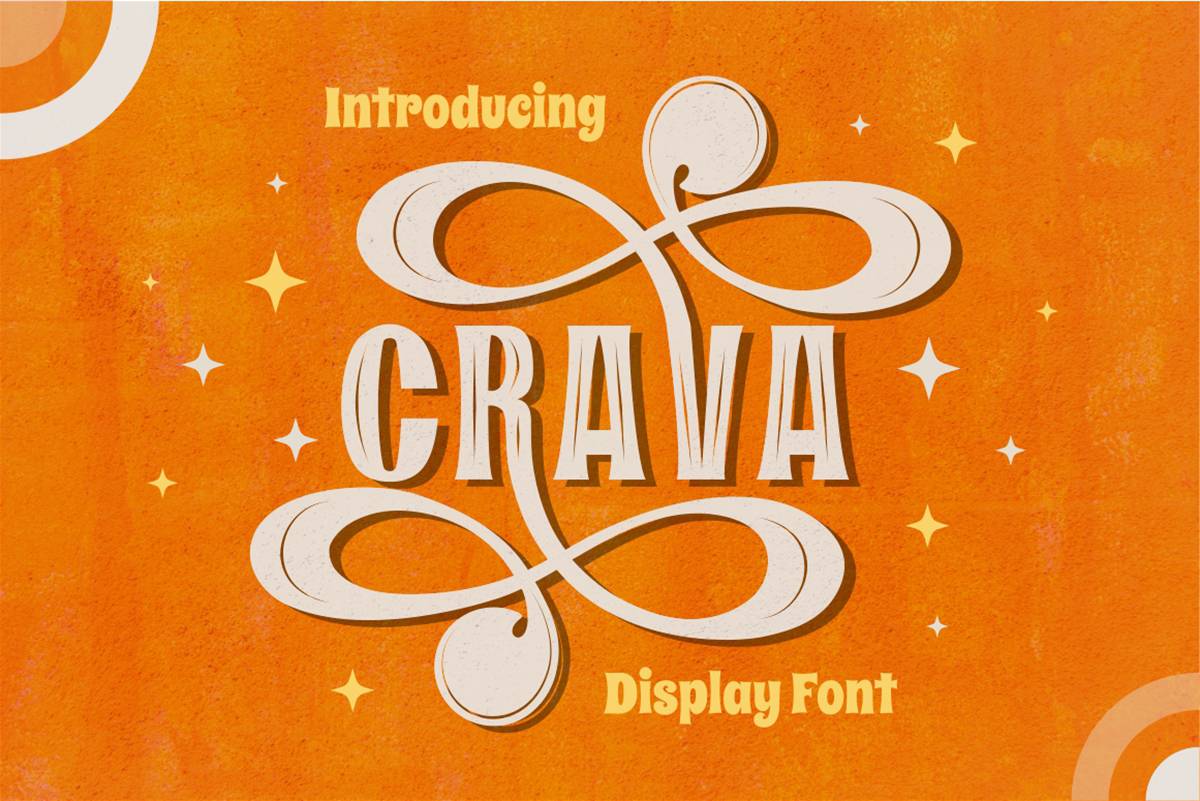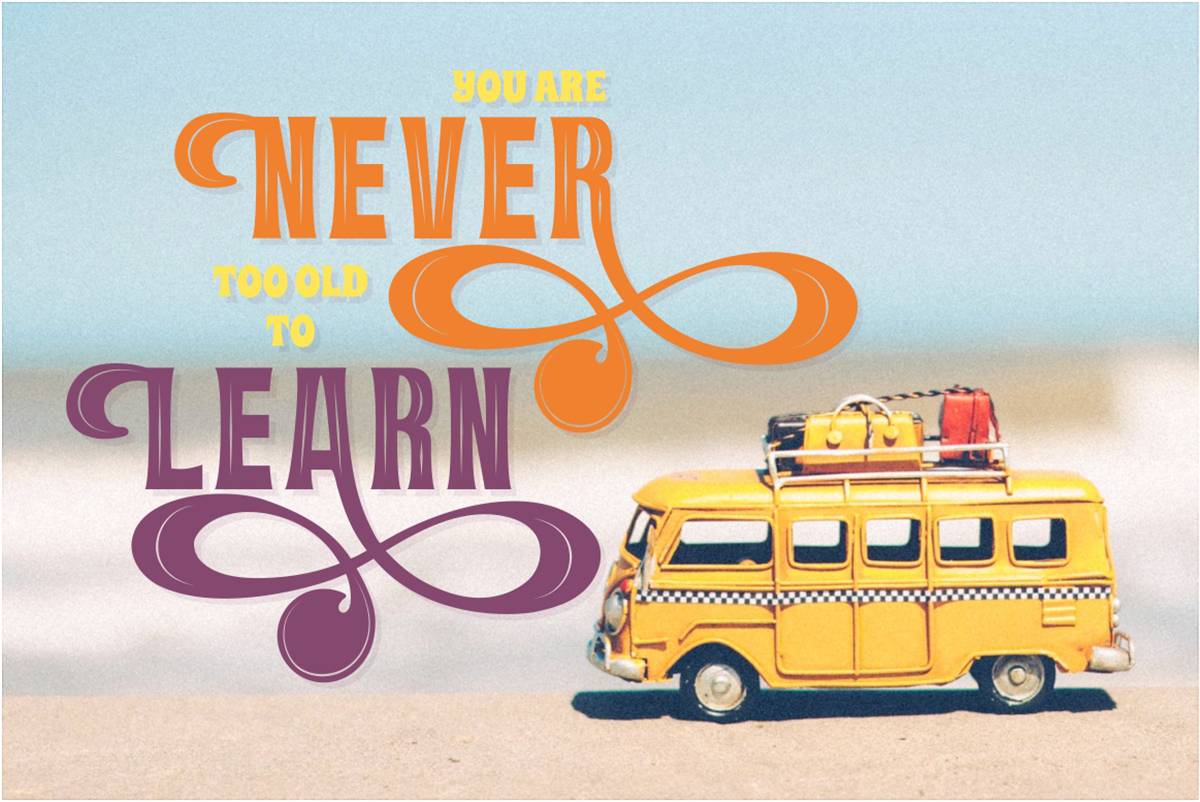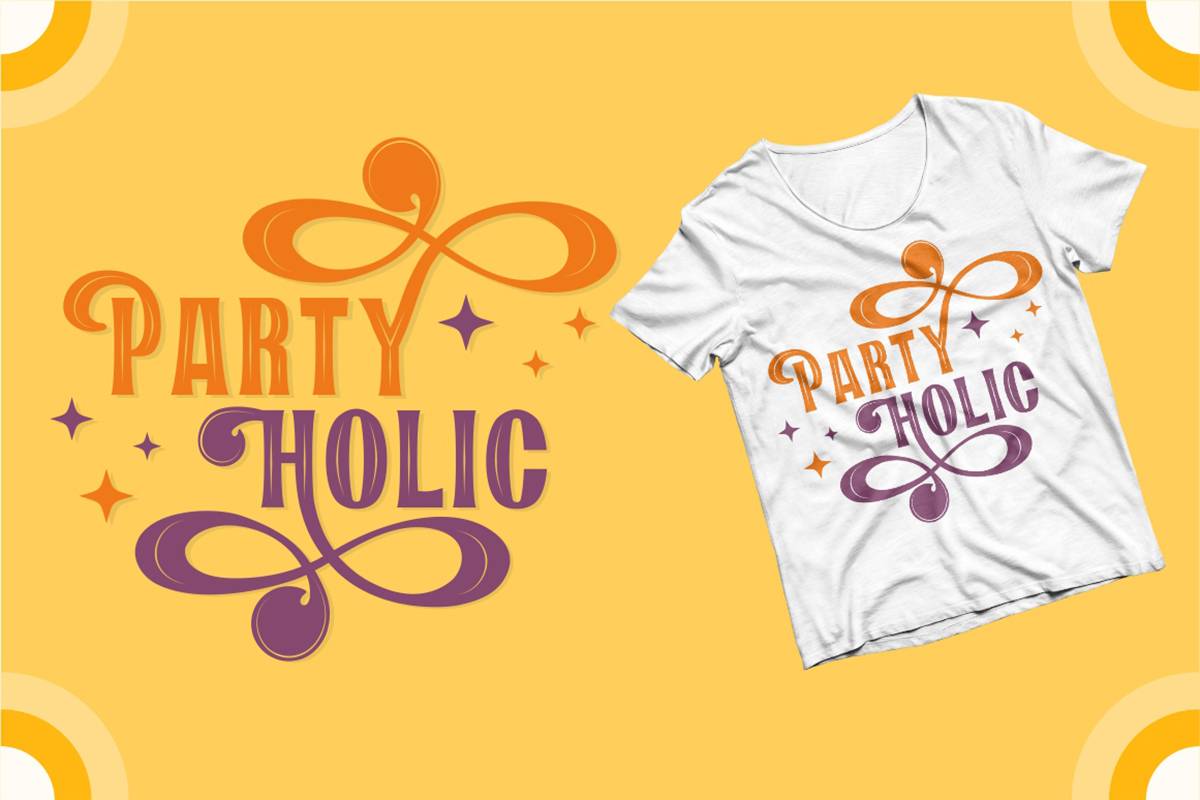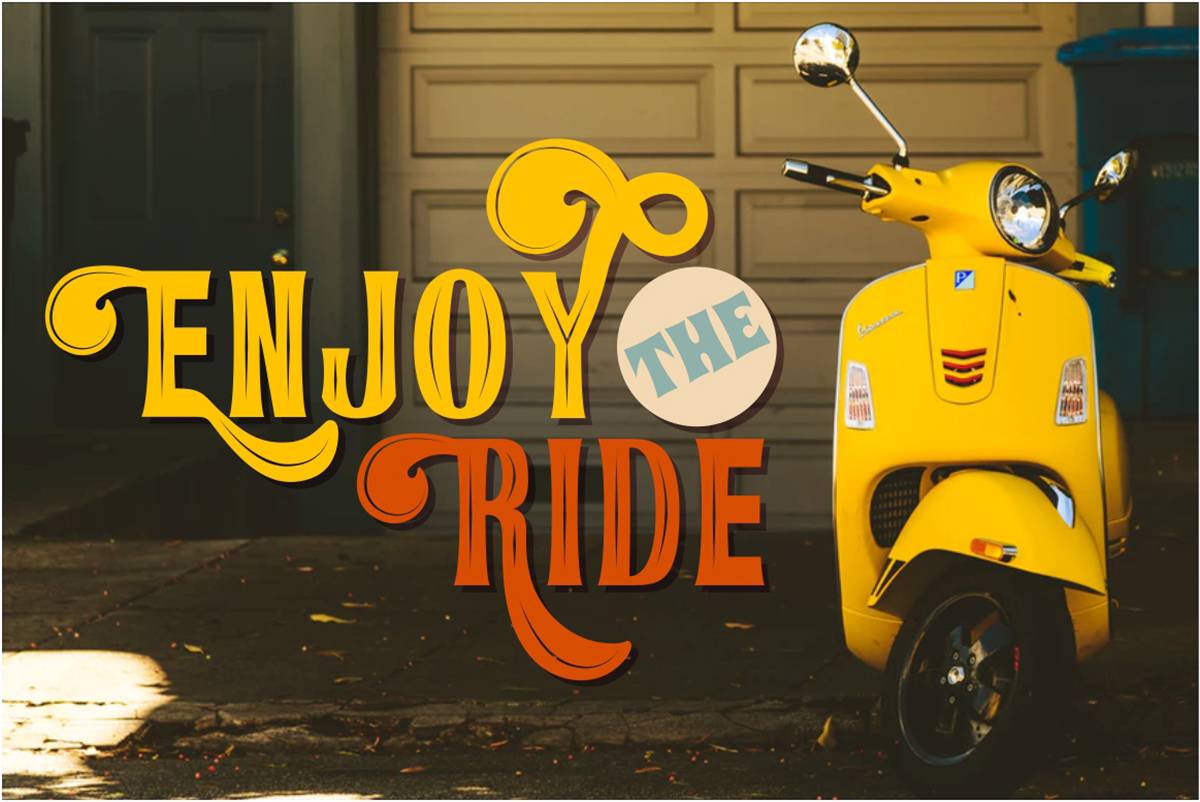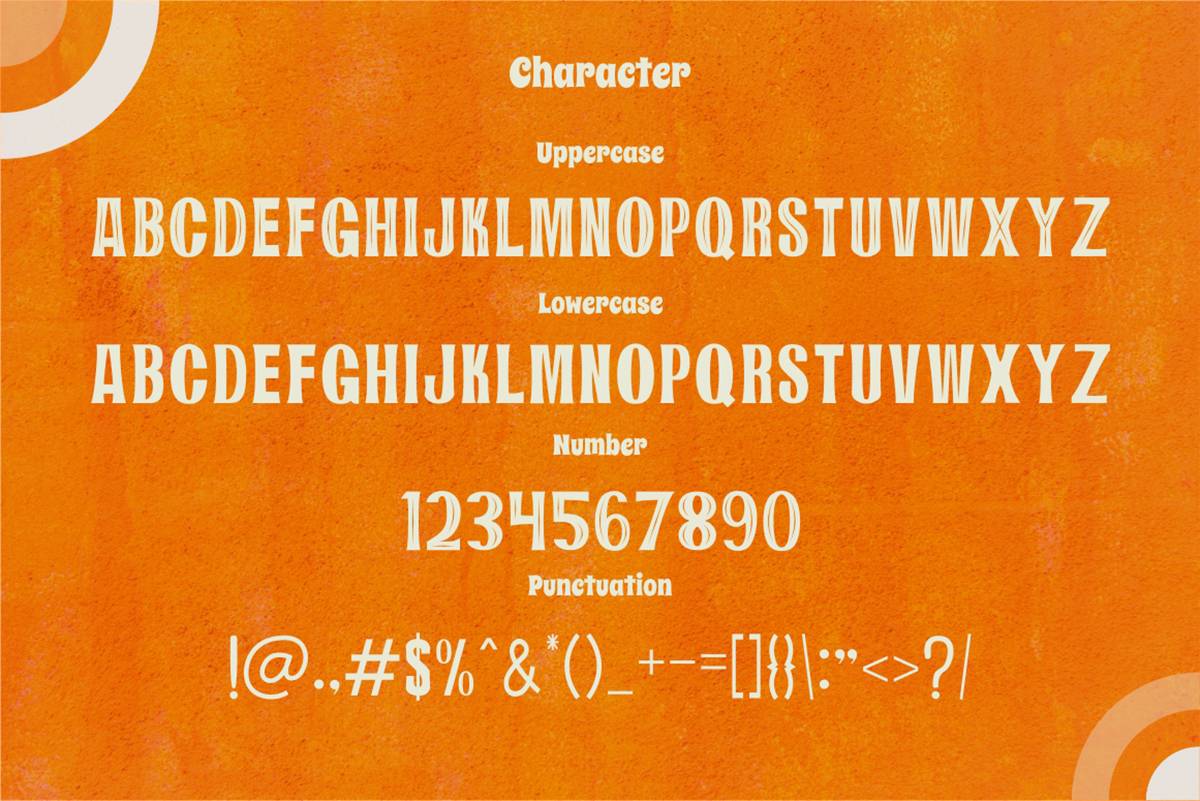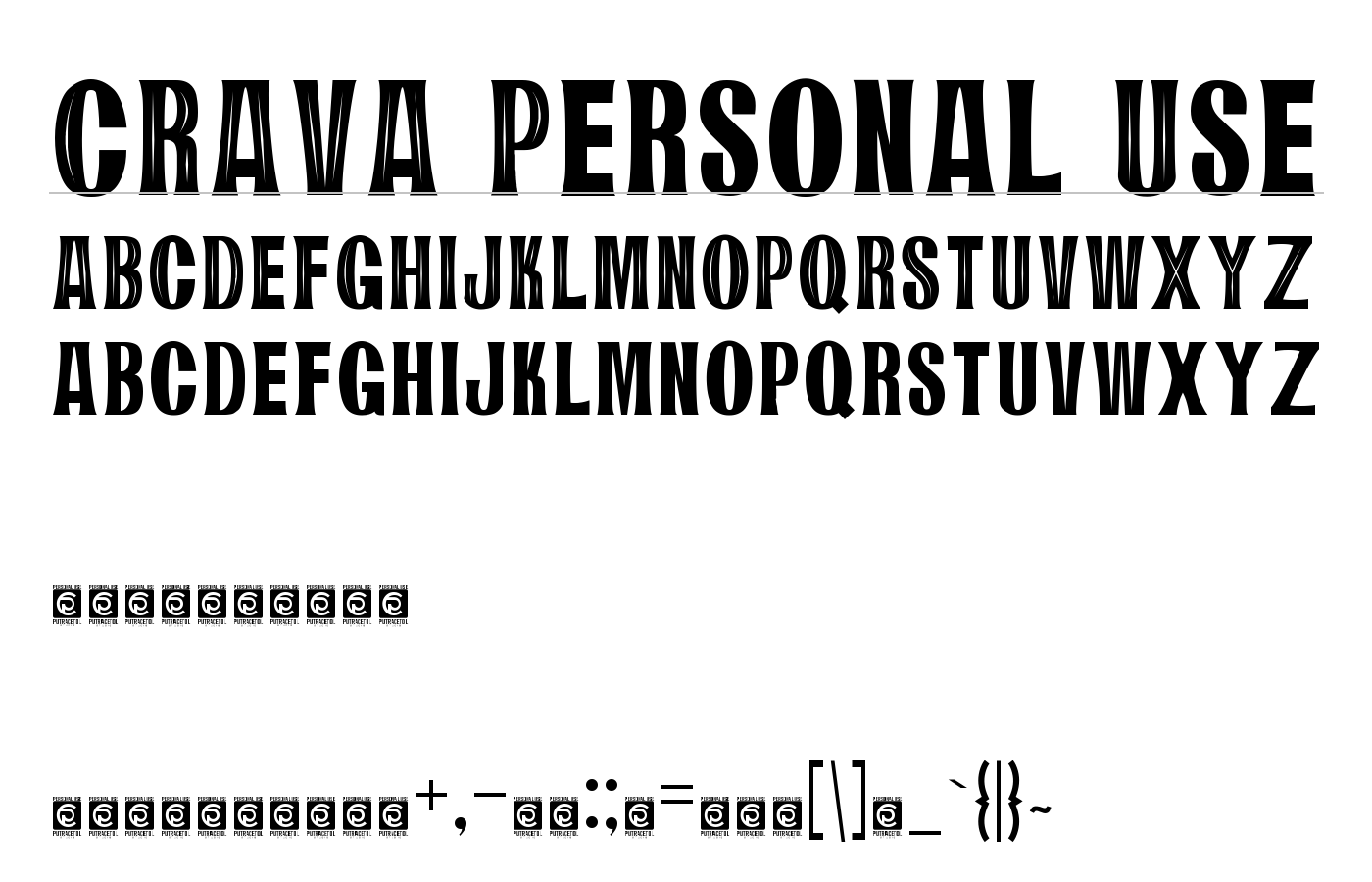
Crava is a bold, condensed serif font with a vintage flair, featuring strong vertical stress and moderate stroke contrast that gives it a distinctive, commanding presence. Its tall letterforms and sharp, bracketed serifs make it ideal for impactful headlines, logos, and branding projects where a touch of historical elegance meets modern strength. This font works well in designs aiming for a classic yet bold statement, perfect for editorial and packaging applications.
Crava Font
About Crava Font